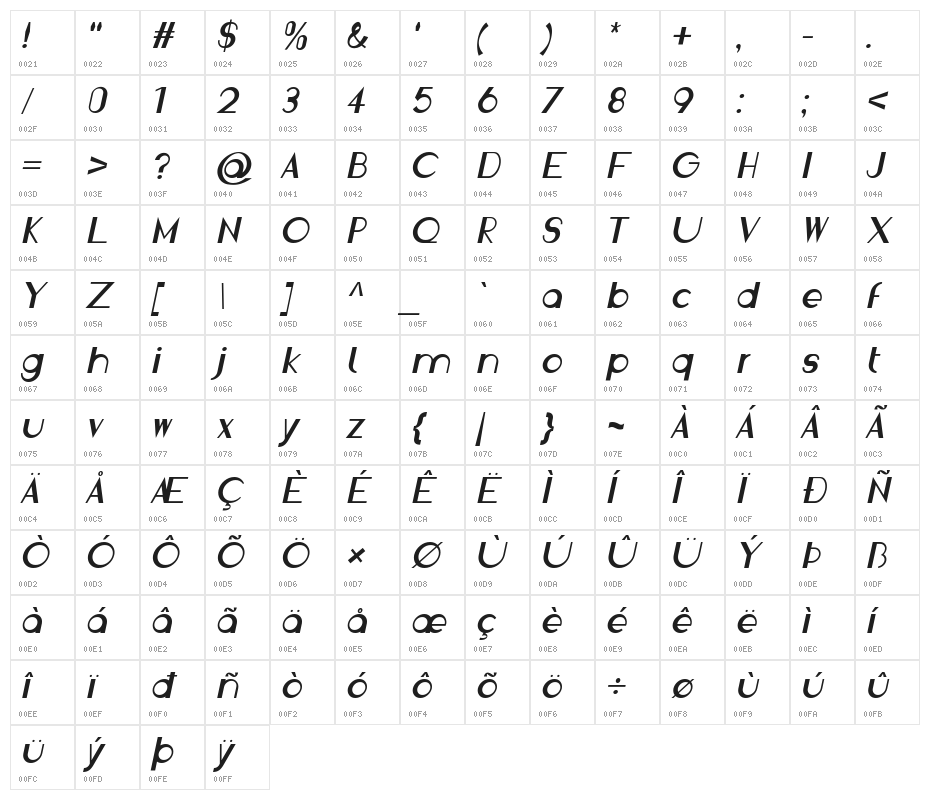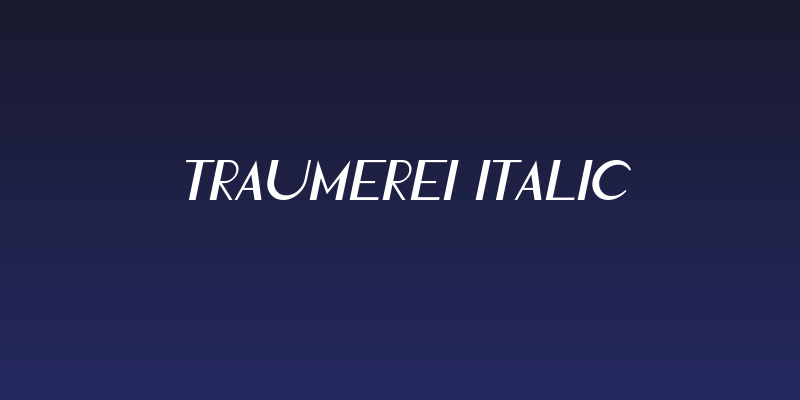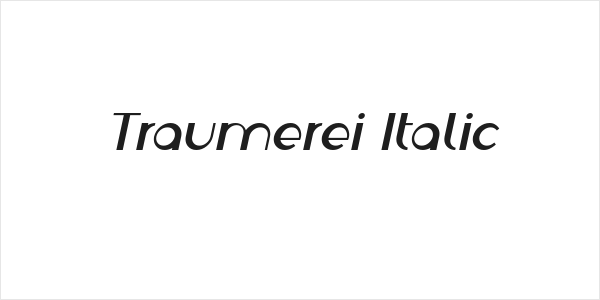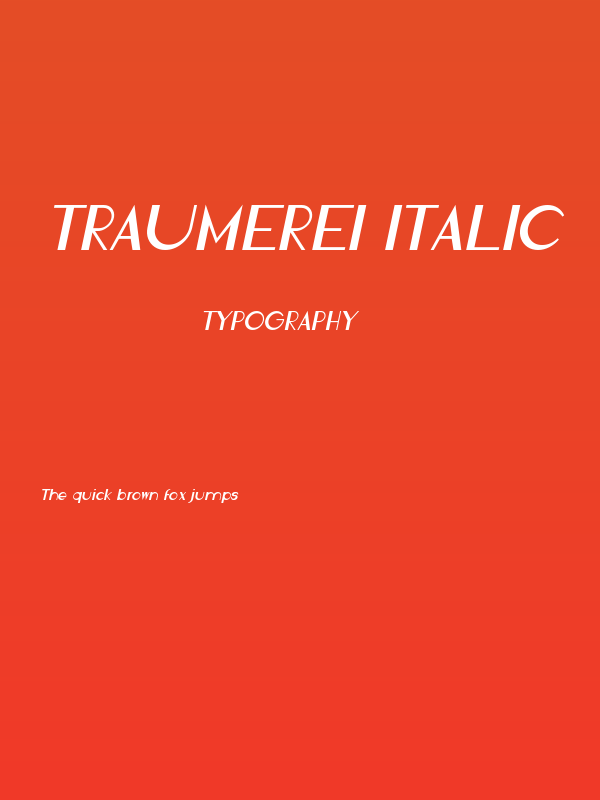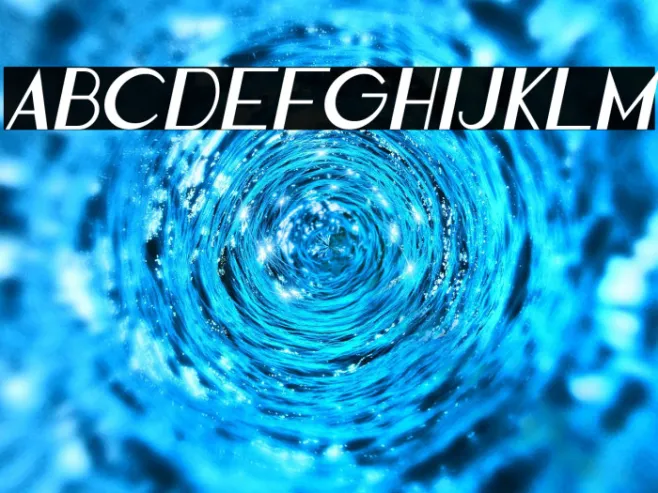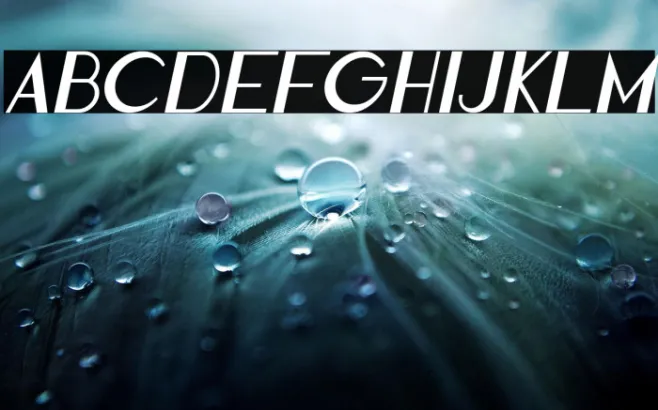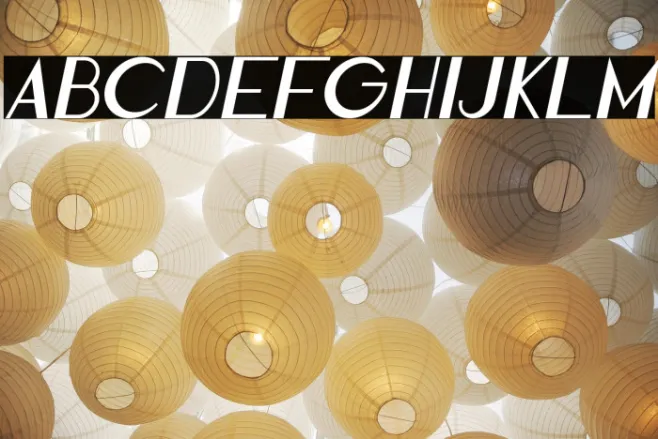
Traumerei Italic Font
Traumerei Italic Description
This font exhibits a sleek and modern italic style, characterized by its smooth curves and elegant slant. The uppercase letters are tall and slightly condensed, giving a sophisticated appearance. The lowercase letters maintain a consistent flow, enhancing readability while retaining a stylish flair. Numbers are distinct and align well with the overall design, ensuring clarity in numerical data presentation. Special characters are thoughtfully integrated, maintaining the font's cohesive aesthetic. The font's design is suitable for projects requiring a contemporary and refined look.
| Proposed Projects | Ideal for branding, advertising, fashion magazines, and modern web design. |